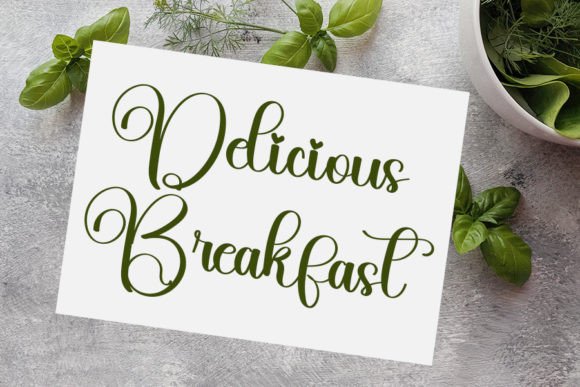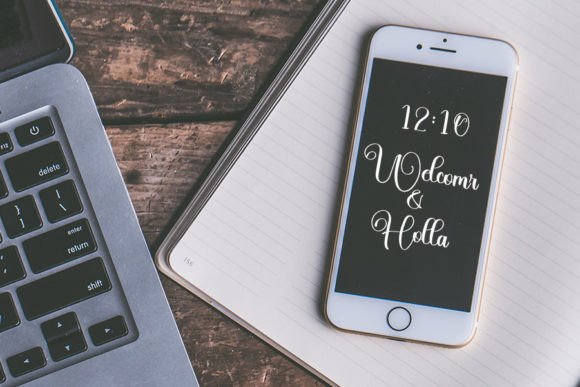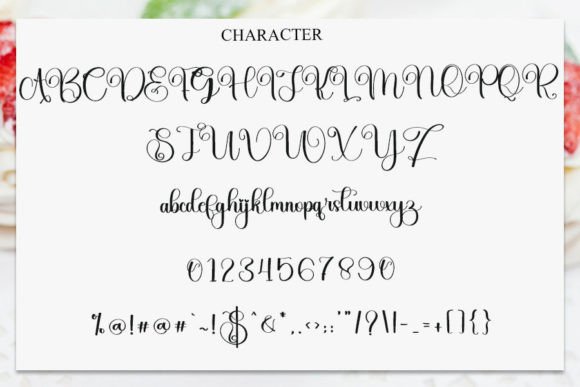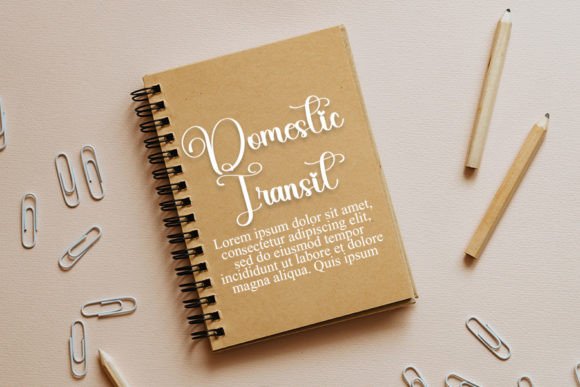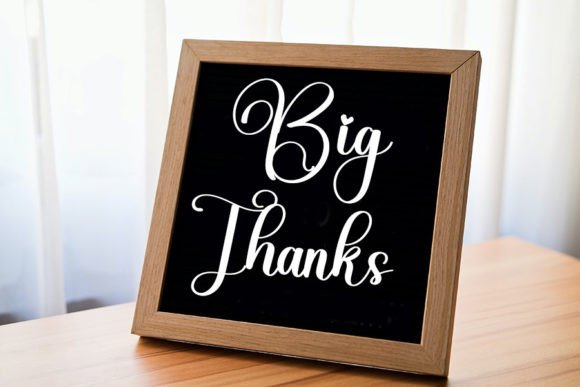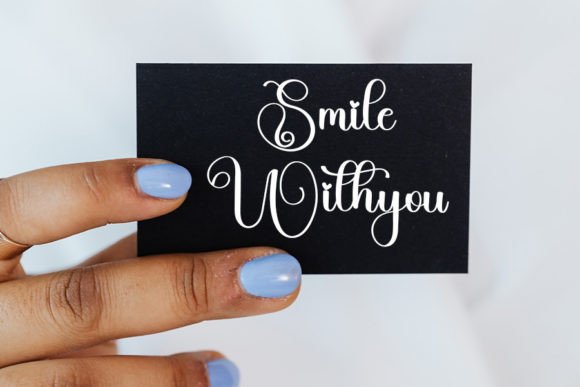
Vanilla Font
About Vanilla Font
Introducing Vanilla, a casual and elegant script font that invites you to fall in love with its incredibly versatile style. Use Vanilla to create gorgeous wedding invitations, beautiful stationery art, eye-catching social media posts, and much more. This font is designed to add a touch of casual elegance to your projects, making it a versatile choice for various creative endeavors.
The casual and elegant script style of Vanilla makes it suitable for a wide range of design applications. Whether you’re working on formal invitations, social media graphics, or any other creative project, this font brings a sense of sophistication and charm.
One notable feature is that Vanilla is PUA encoded, allowing you to access all of the glyphs and swashes with ease. This feature enhances your creative freedom, enabling you to explore and incorporate various characters and stylistic elements seamlessly.